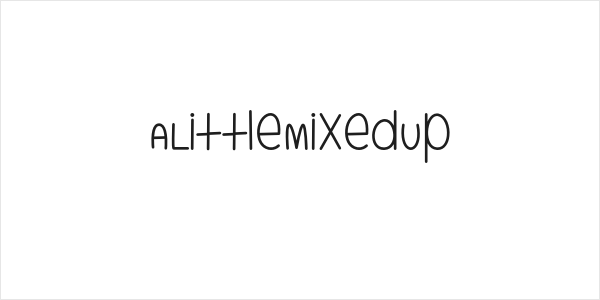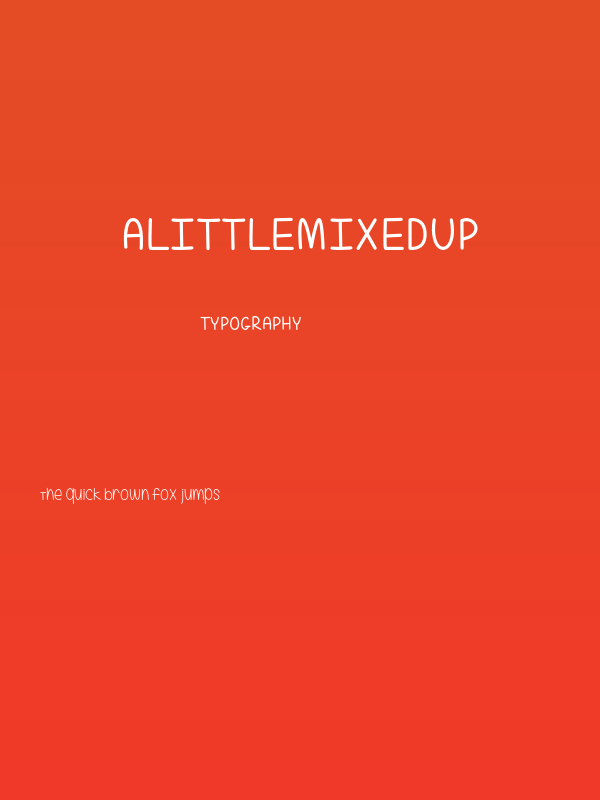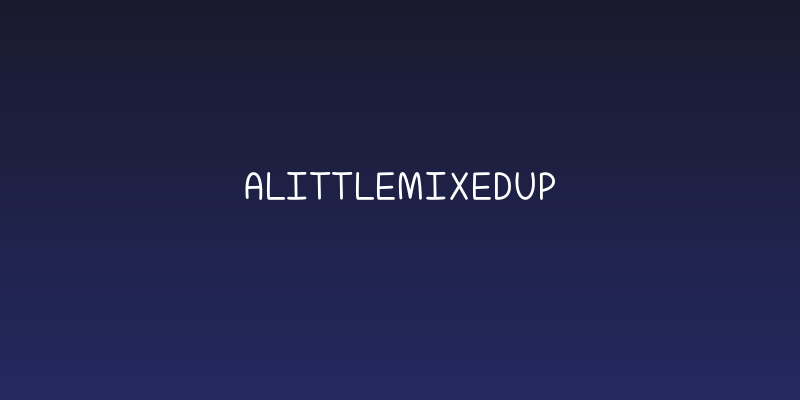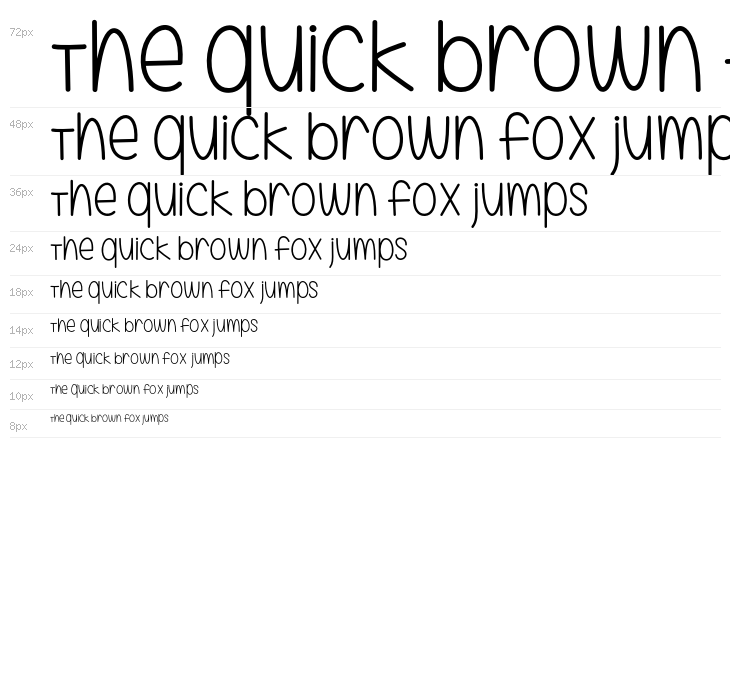
ALittleMixedUp Font
ALittleMixedUp Description
This playful and whimsical font features rounded, smooth curves and a casual, handwritten style. The letters are evenly spaced with a consistent stroke width, giving it a clean and approachable appearance. The uppercase and lowercase letters maintain a uniform height, contributing to its legibility. The numbers and special characters are designed with the same playful aesthetic, making it versatile for various uses. Its simplicity and charm make it suitable for projects that require a friendly and informal tone.
Overall StyleCasual
Use CaseHeadlines, Informal text, Branding
Proposed ProjectsIdeal for children's books, greeting cards, casual branding, and playful social media graphics.